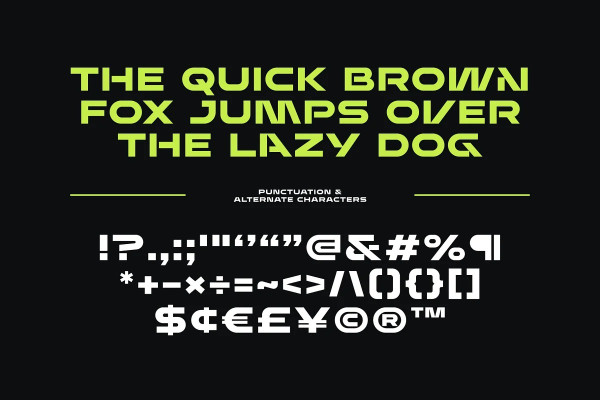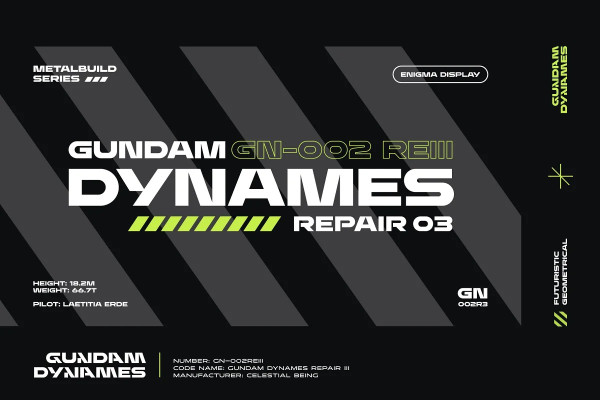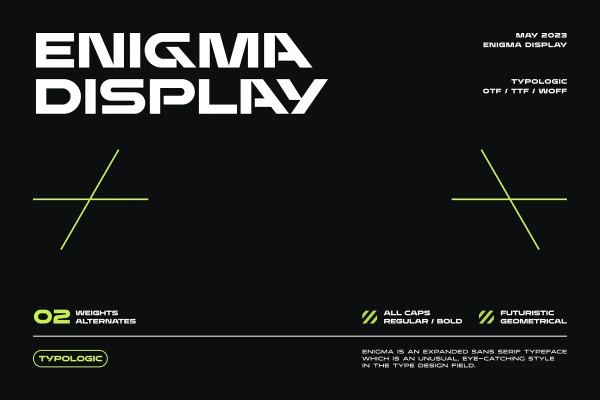
Enigma Font
Enigma Font is an expanded sans serif typeface, which is an unusual, eye-catching style in the type design field. All letters have the same weight optically and create a consistent feel across varied uses. Alternate characters are available for those of you who want to create a unique type, making your identity stand out more.